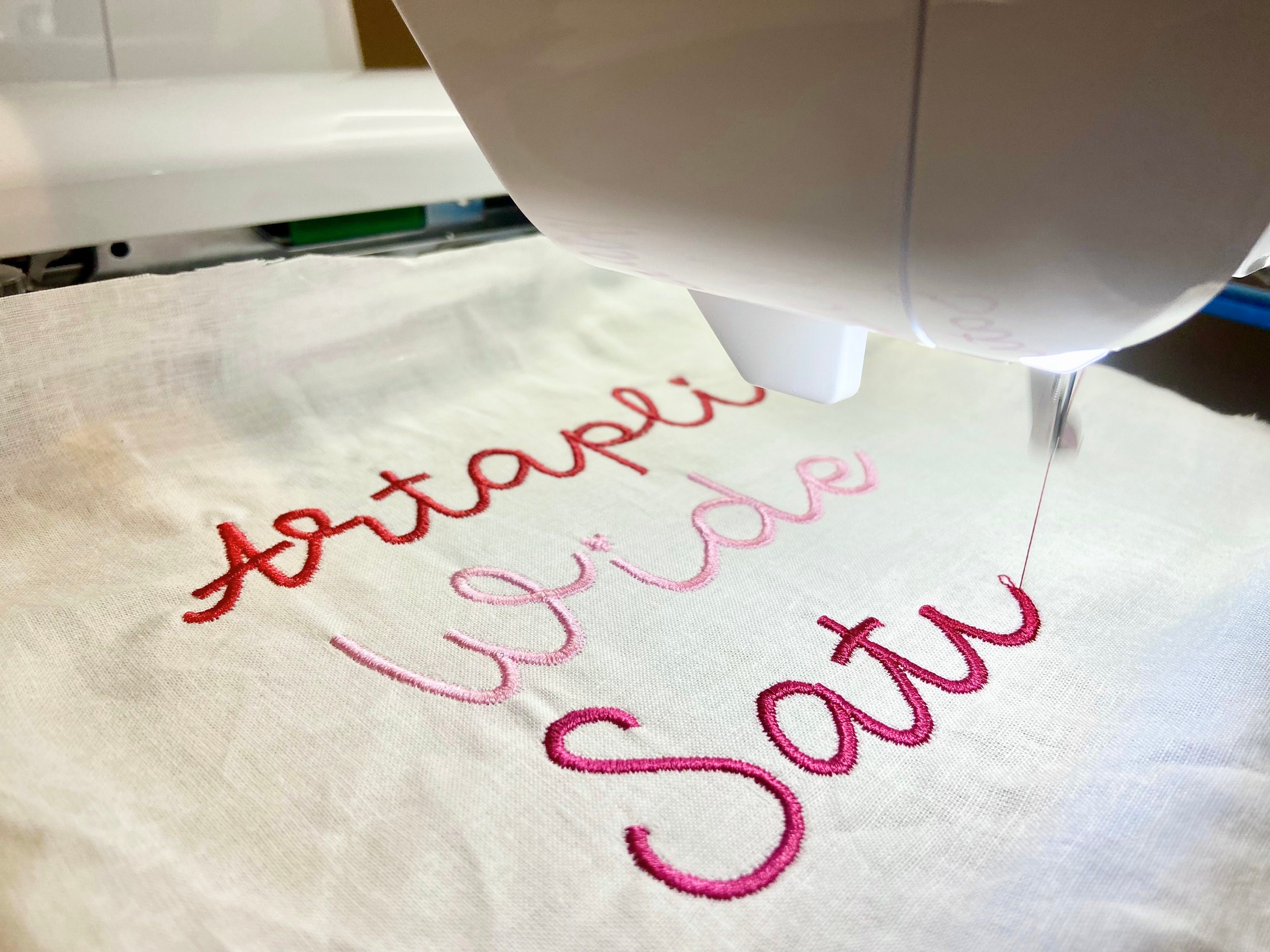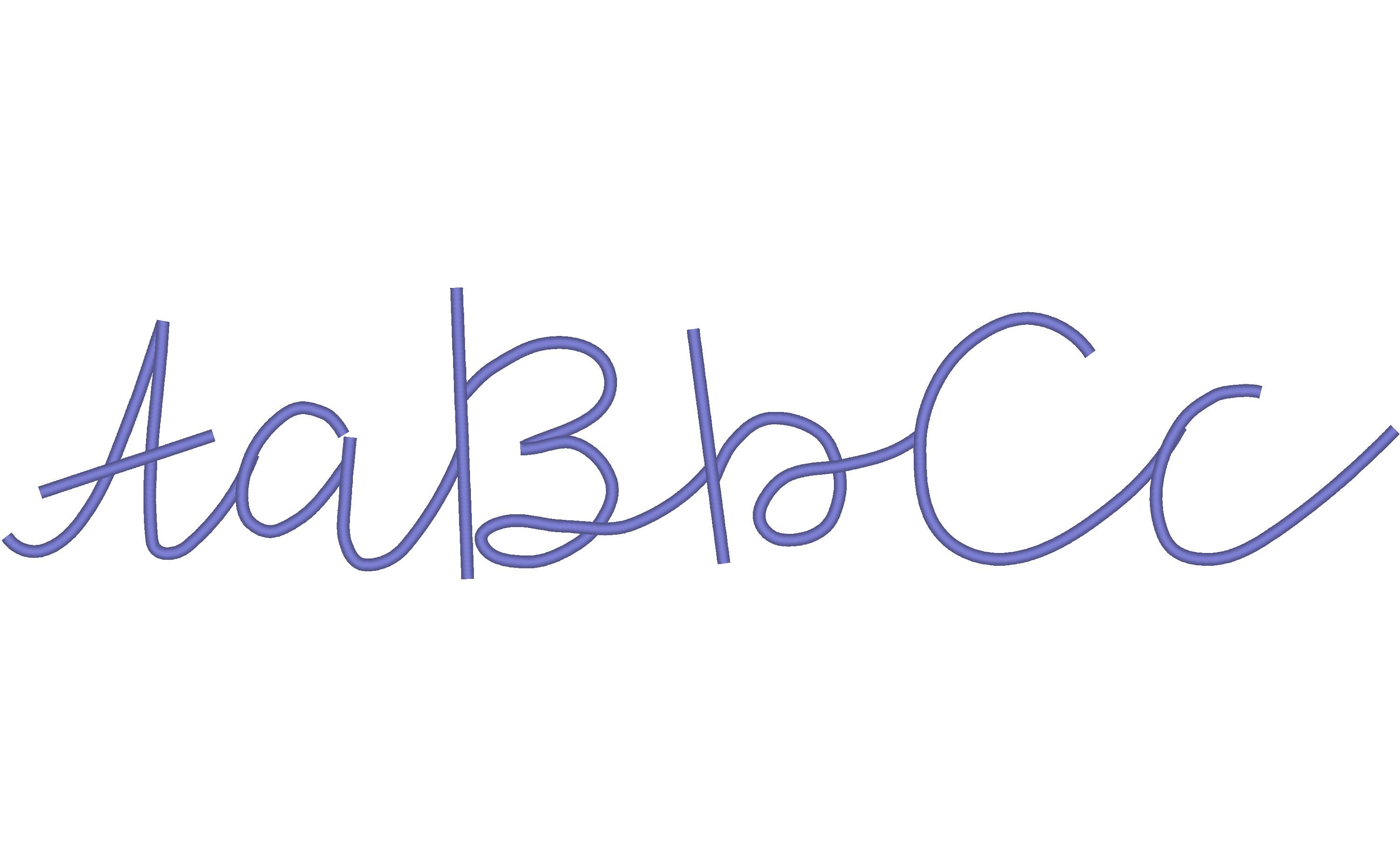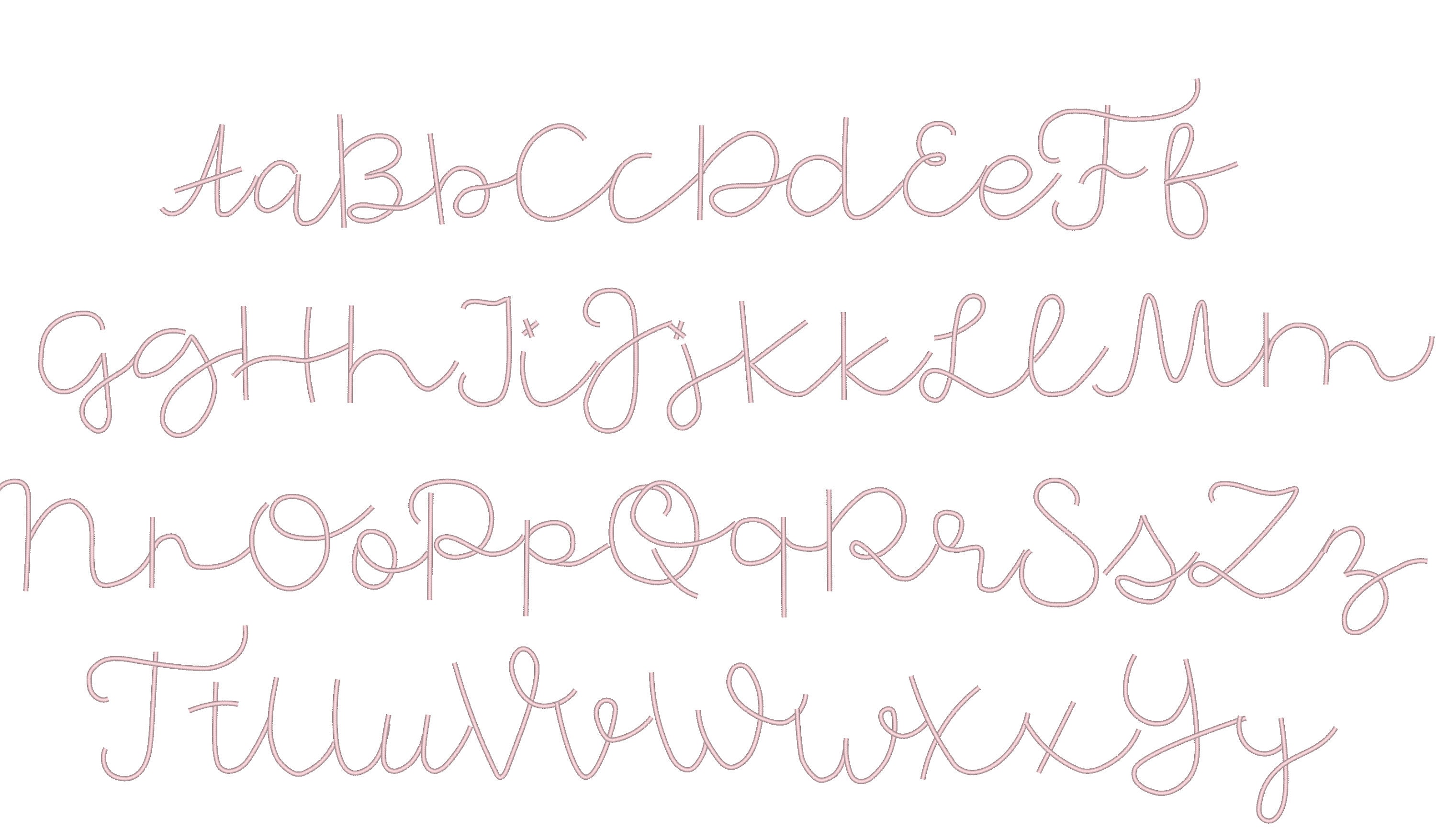
Satin stitch Line FONT machine embroidery designs in assorted sizes 1 up to 4 inches handwritten script alphabet monogram letters, BX included
Whole alphabet: uppercase and lowercase letters